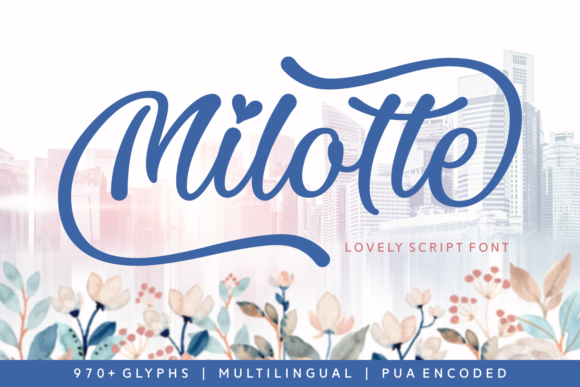
Introducing Milotte Font: Where Elegance and Love Entwine
In the realm of typography, there exists a font that captures the essence of love and romance like no other - Milotte. A breathtaking handwritten script, Milotte is a stroke of pure elegance, specifically designed to adorn your love letters, wedding invitations, and heartfelt messages.
Crafted with meticulous care by the talented Situjuh, Milotte exudes an aura of grace and sophistication, coupled with a touch of warmth and approachability. Its classic style, reminiscent of timeless love stories, blends seamlessly with its modern charm, making it the perfect choice for expressing emotions that transcend time.
Milotte's curves flow effortlessly, mimicking the gentle strokes of a lover's pen, while its sharp edges add a hint of intrigue, mirroring the complexities of the human heart. Each letter is a testament to love's journey, from the initial spark to the enduring commitment.
With Milotte, your words will dance upon the page, carrying the weight of your emotions and resonating with the hearts of your readers. Imagine your love letters adorned with Milotte's elegant script, each word a testament to your unwavering affection. Picture your wedding invitations, imbued with a timeless allure that reflects the depth of your love.
Beyond love letters and invitations, Milotte shines as a versatile font, capable of adding a touch of sophistication and charm to any design. Its PUA encoding ensures effortless access to a treasure trove of glyphs and swashes, allowing you to unleash your creativity and craft truly unique designs.
Whether you're a seasoned designer or simply seeking a font that speaks to your heart, Milotte awaits you. Embrace its timeless beauty and let it elevate your designs to new heights of eloquence and romance.